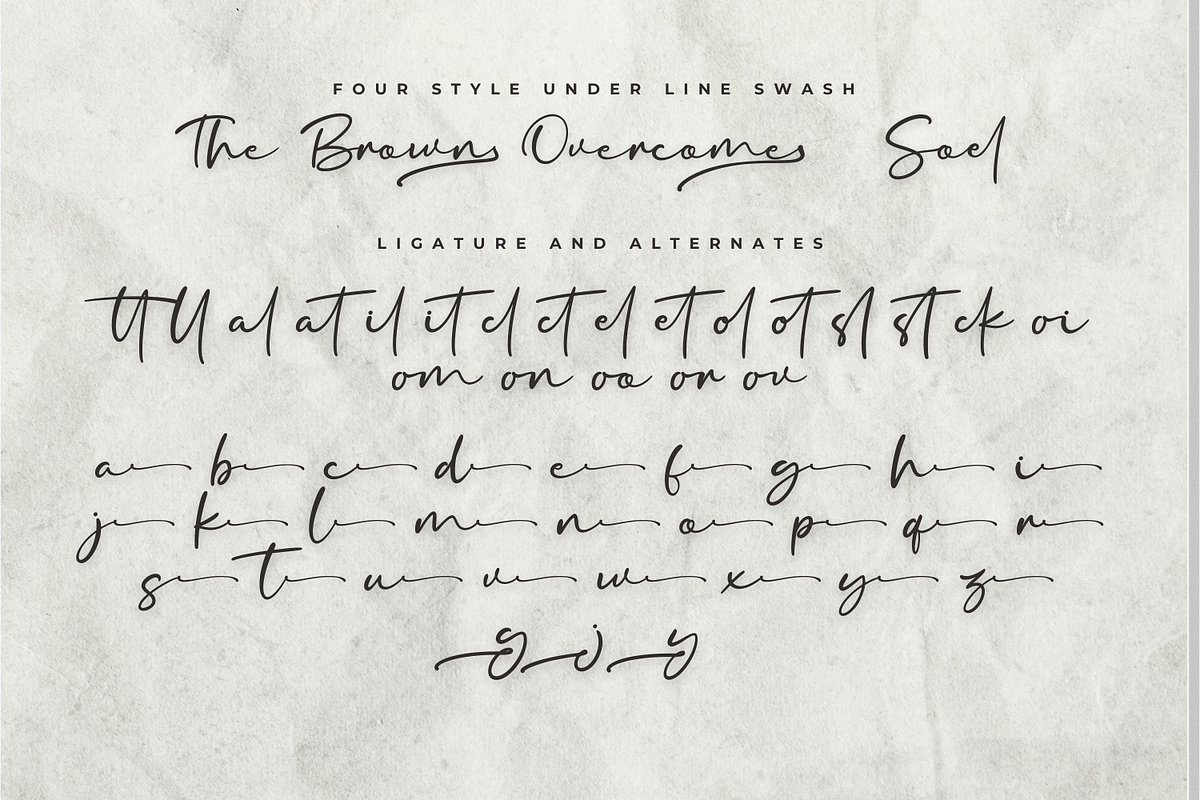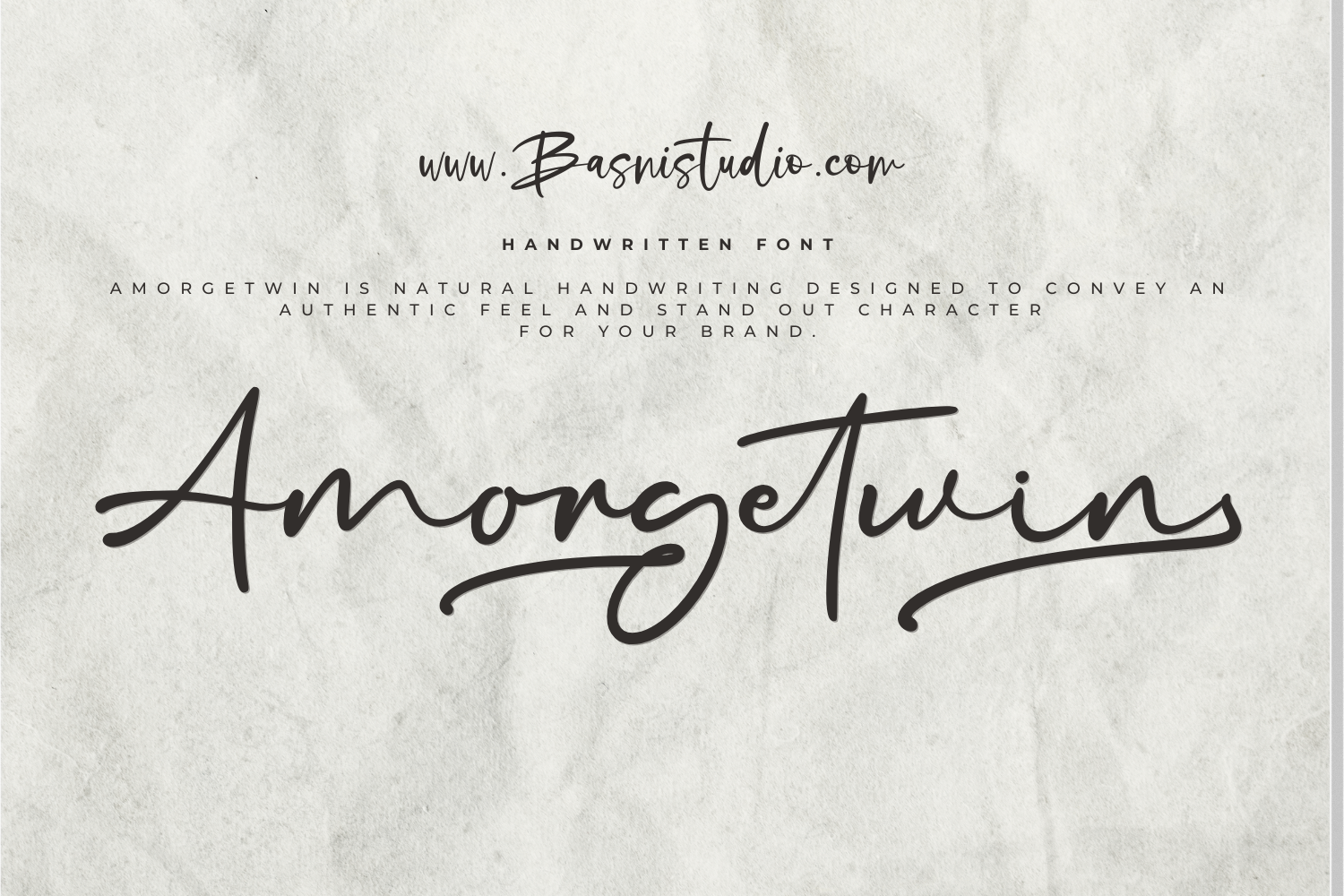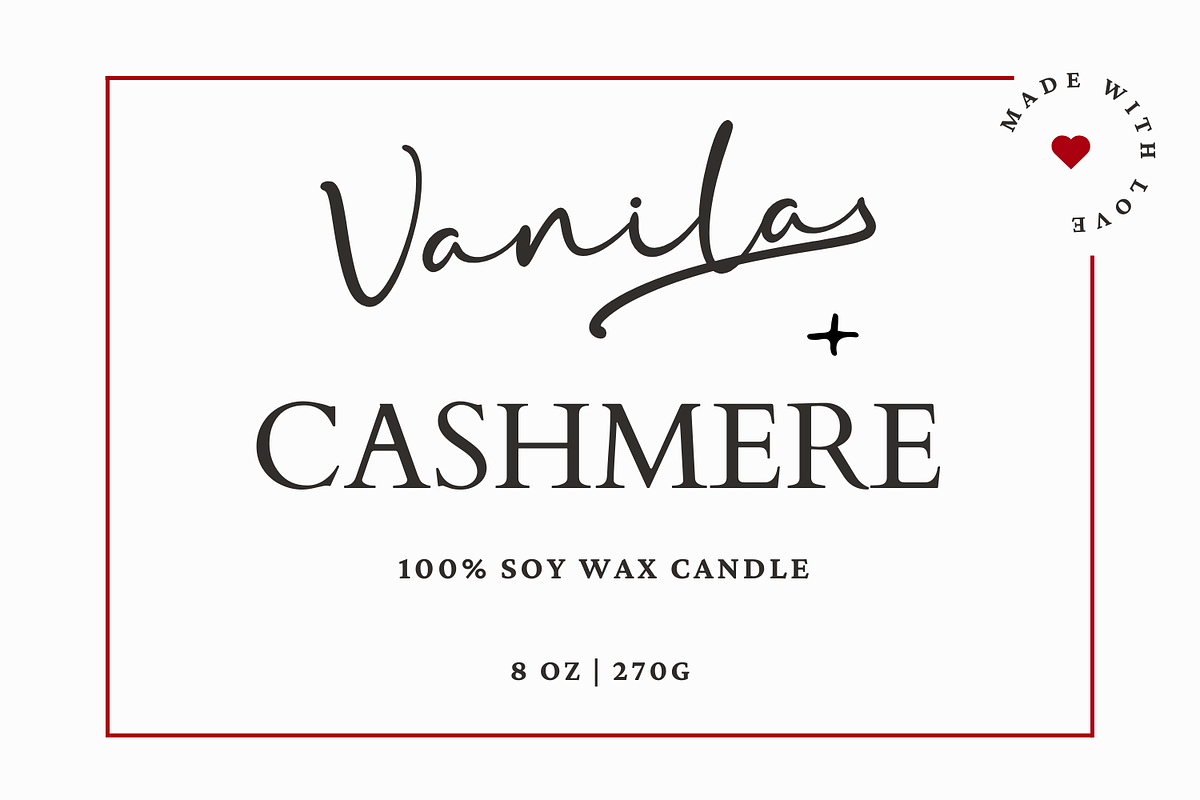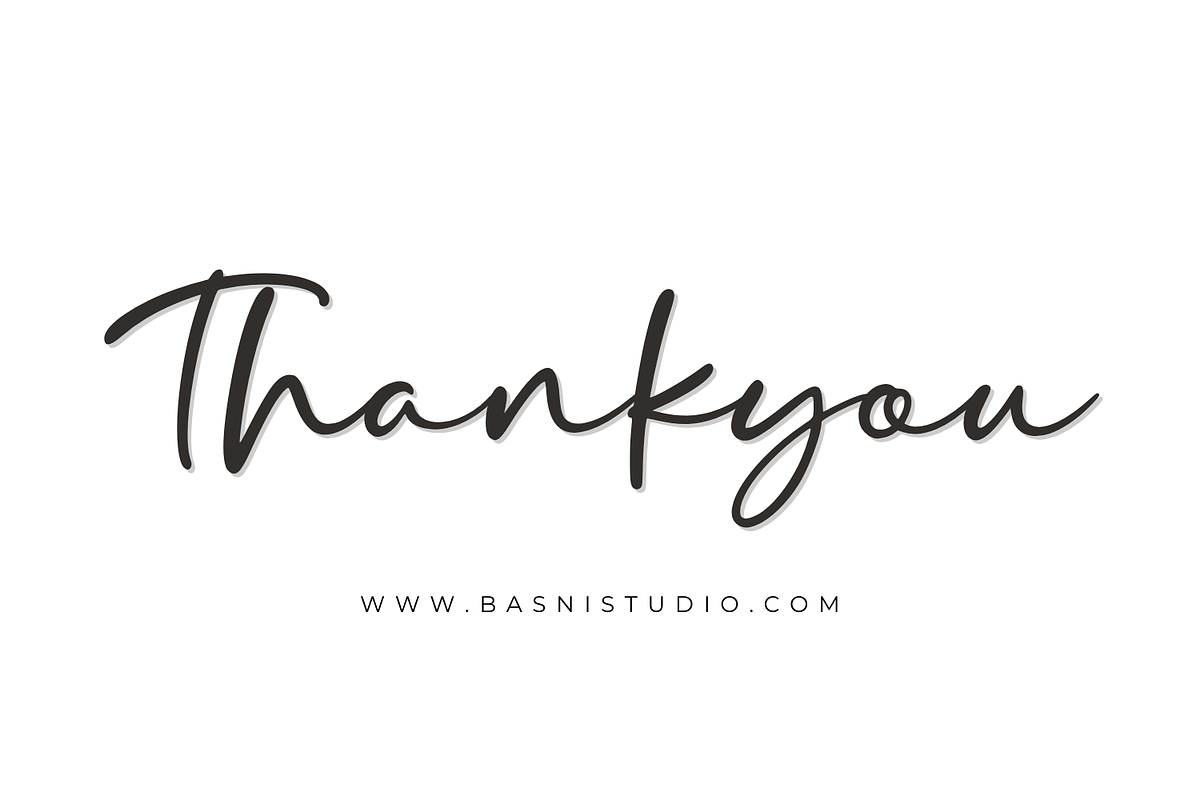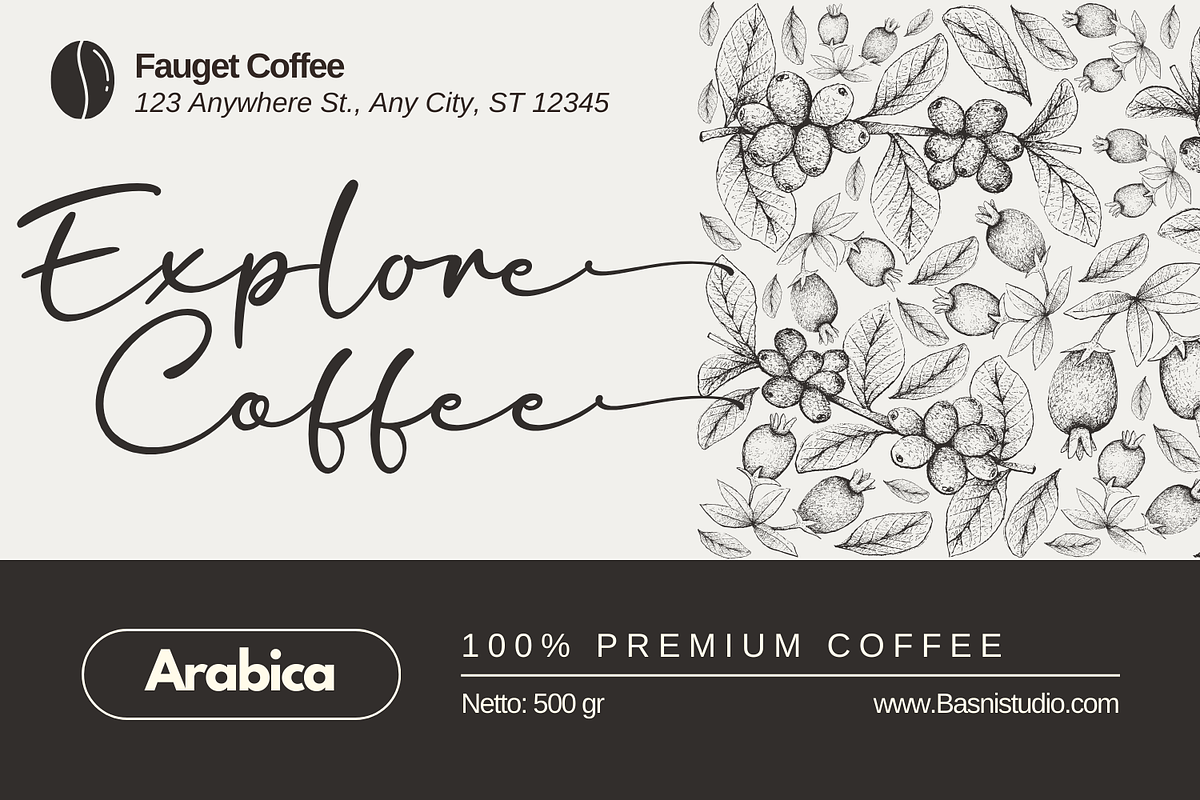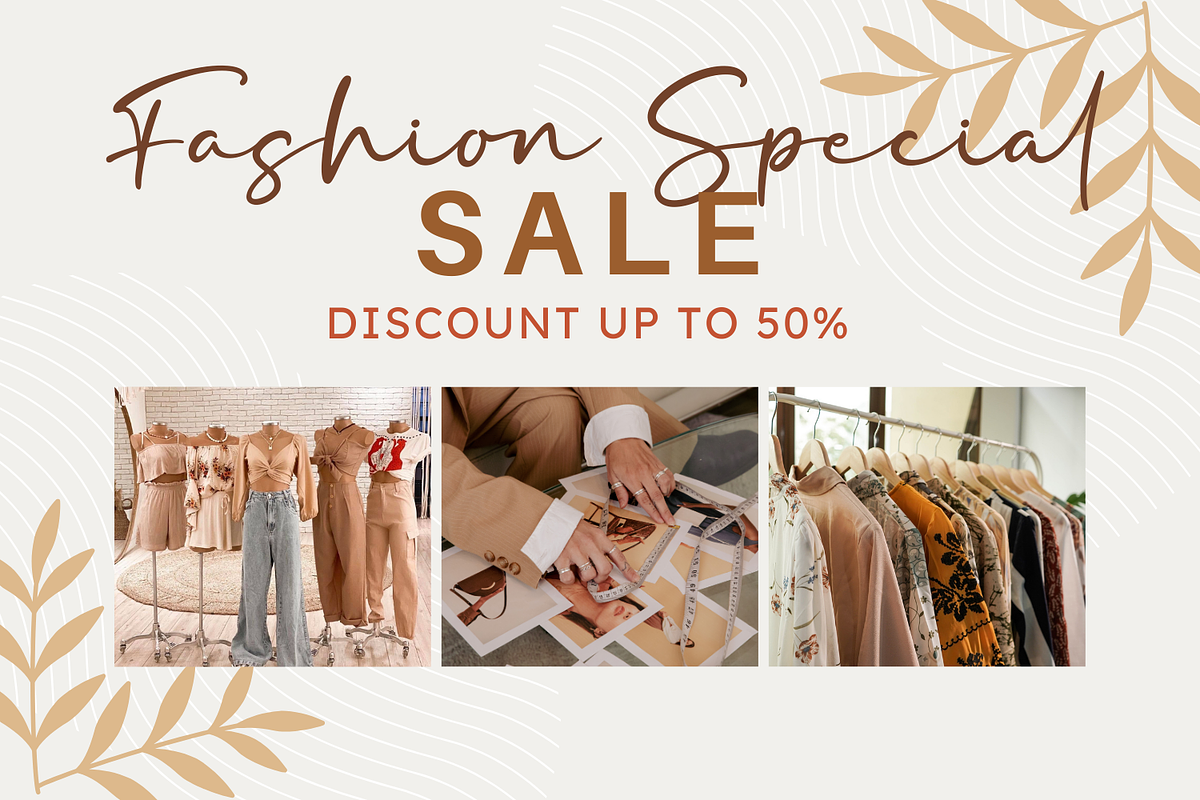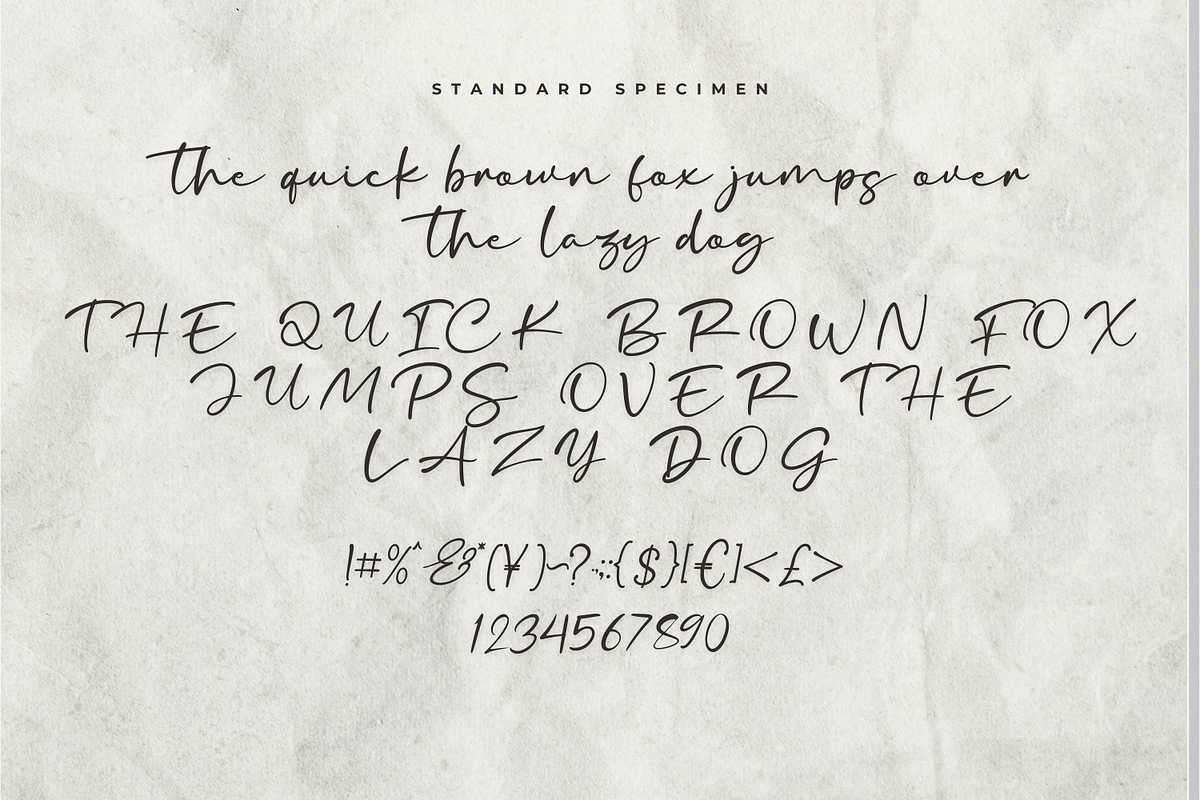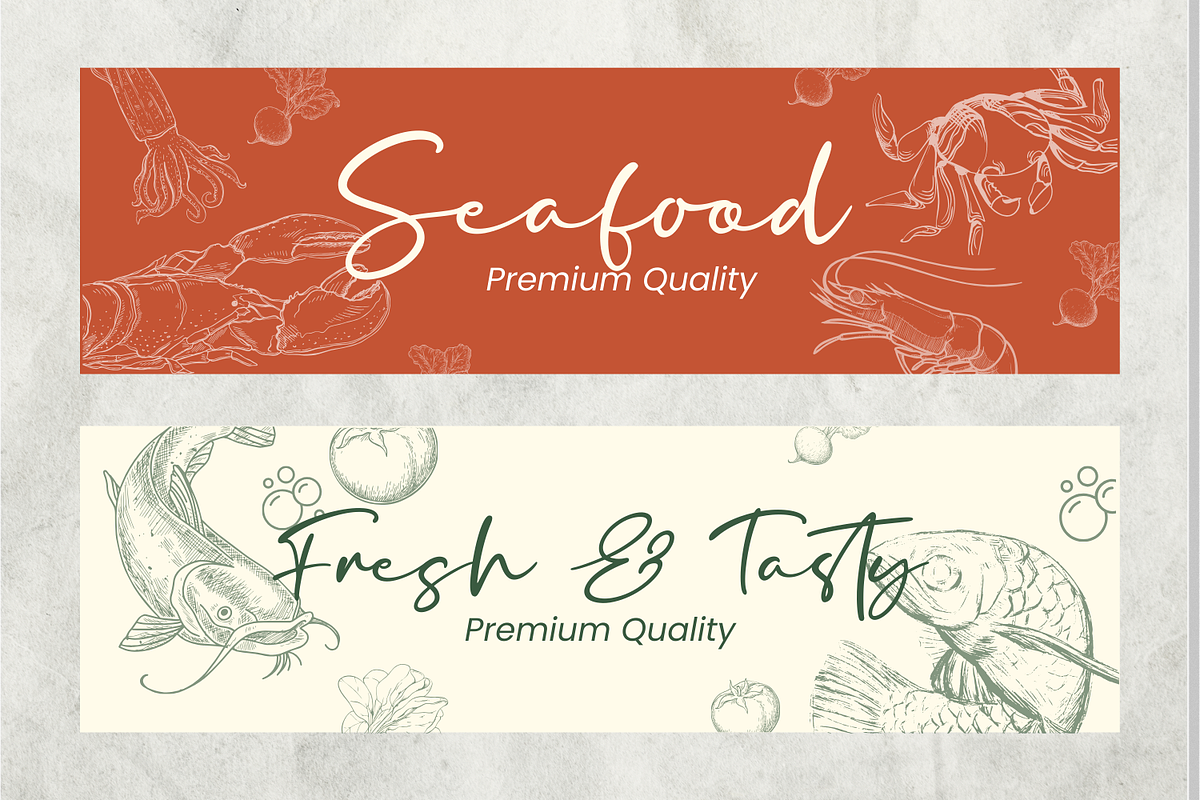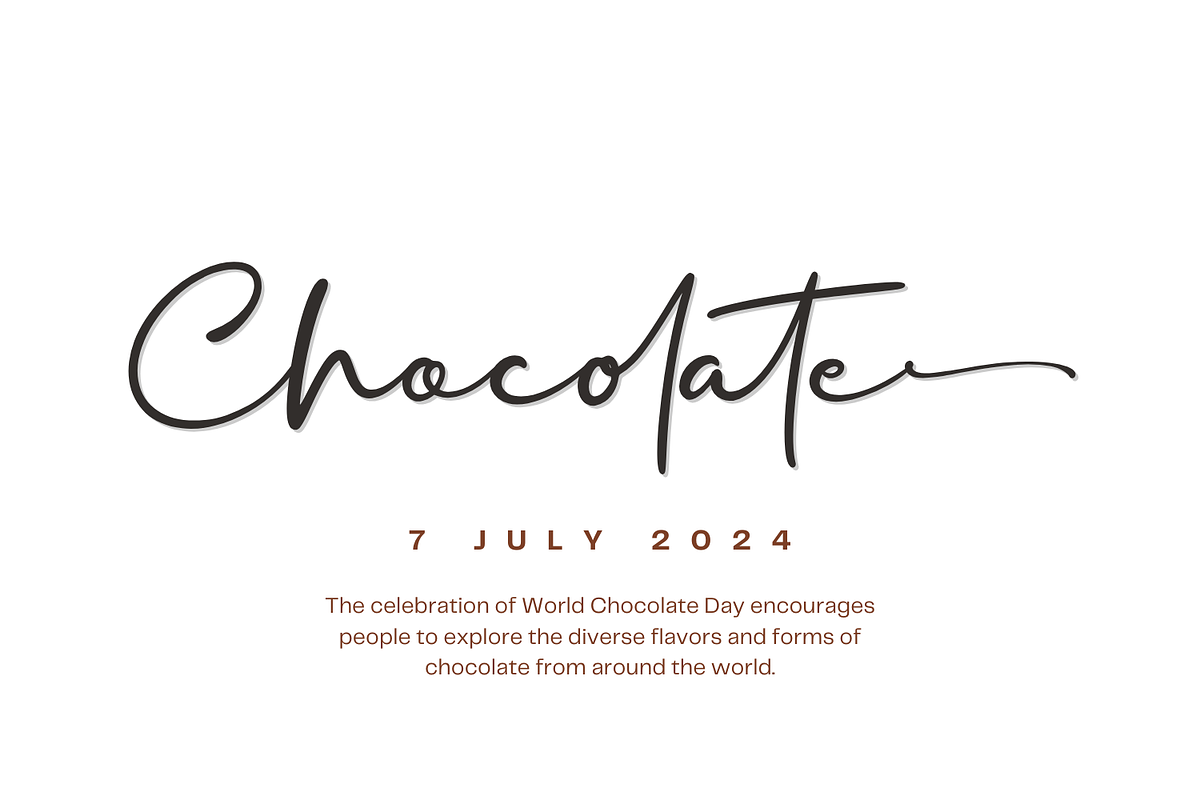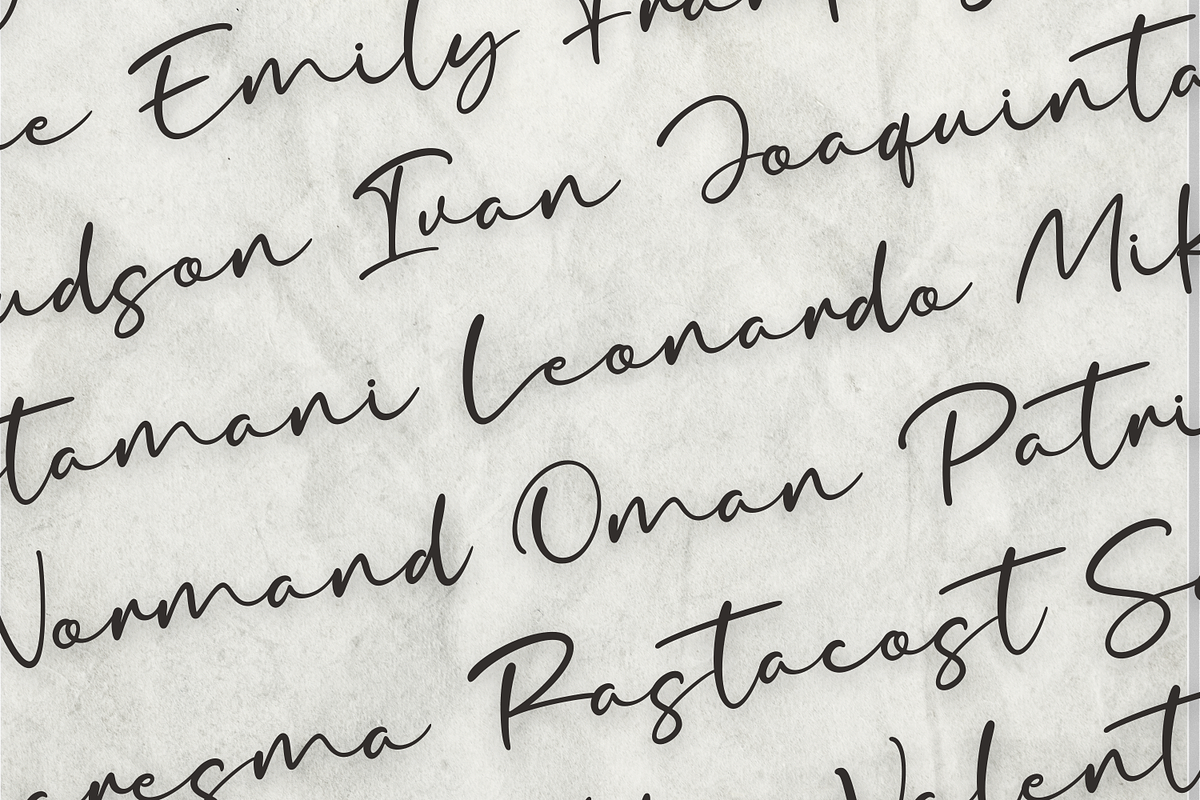
Amorgetwin Handwritten Font
The Perfect Handwritten Touch for Your Designs
Looking for a font that brings warmth, personality, and authenticity to your projects? Amorgetwin is a beautifully crafted handwritten typeface that adds a natural, personal touch to everything from branding and social media to invitations and packaging.
Whether you’re building a powerful brand identity or crafting a standout logo, Amorgetwin
gives you the creative edge you need.